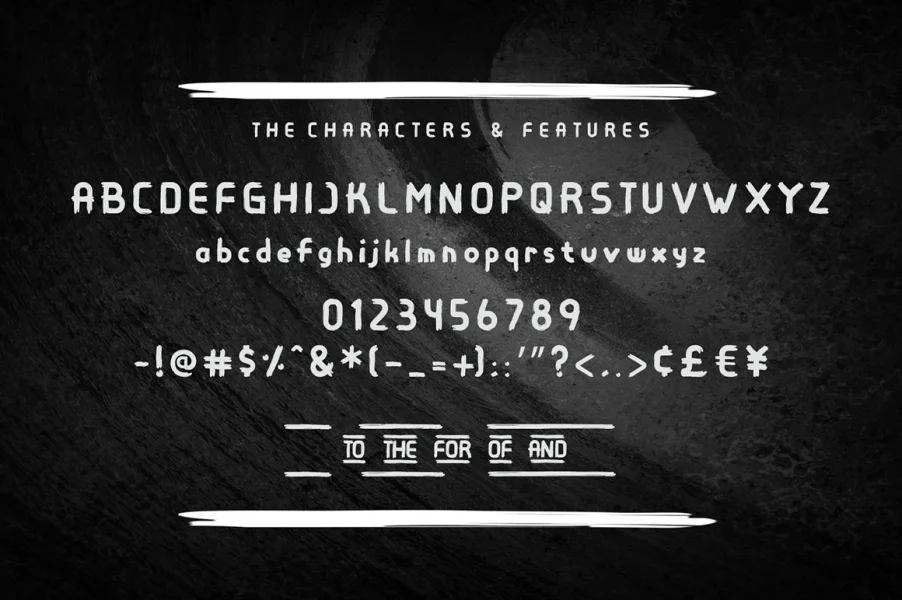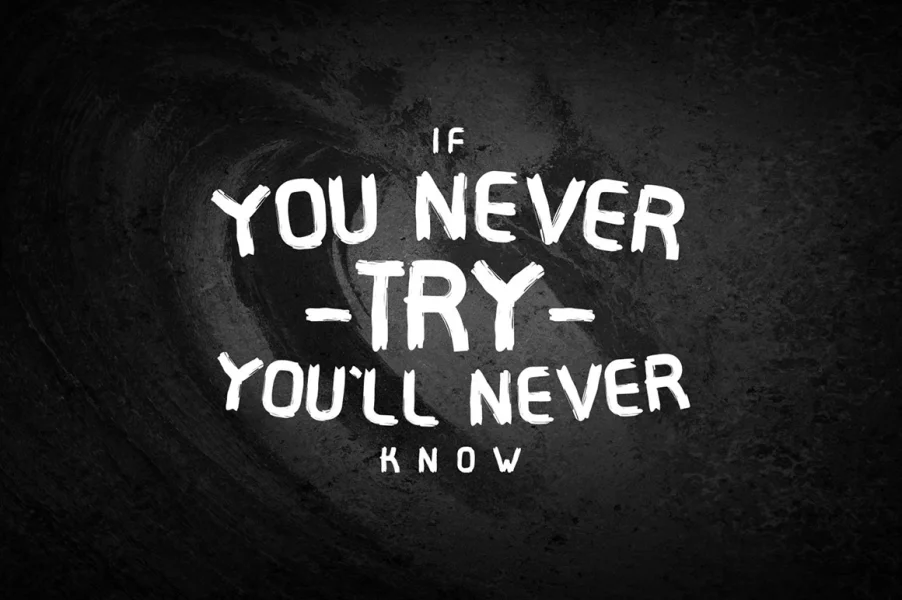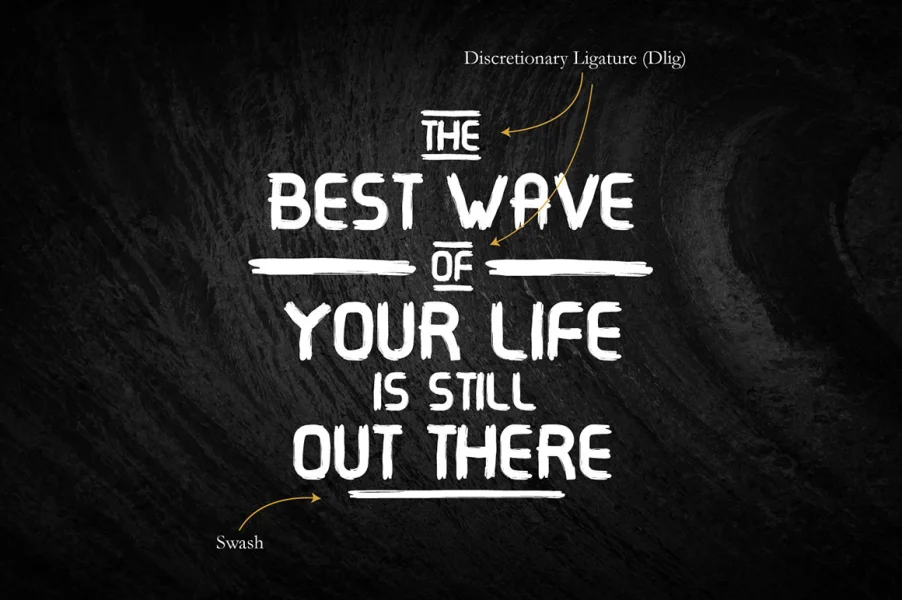
Inspired by rough and hard brush, Antreas Typeface is a bold and strong display font. Perfect for headers, logos, magazines, titles, posters, flyers and everywhere you want to grab attention.
FEATURES Lowercase, Uppercase, Numeral, Punctuation, Ligature, Discretionary Ligatures Swash, Stylistic Alternates Contextual Glyphs